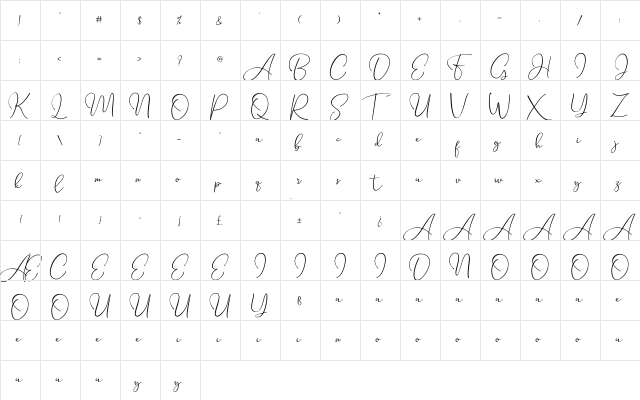
Seattle Script Demo Regular Font Preview
Seattle Script Demo Regular
Seattle Script Demo Regular Font Details
Design Context for Seattle Script Demo Typeface
Seattle Script Demo brings a calligraphic fluidity to the page — its connecting strokes and expressive curves give it an unmistakably human quality.
Font Pairing: Combine Seattle Script Demo with a simple geometric sans for maximum contrast — the tension between flowing curves and clean structure is a classic typographic pairing.
Pro Tip: Use Seattle Script Demo for short runs of text — names, titles, or taglines. Extended body copy in script faces tires the eye quickly.